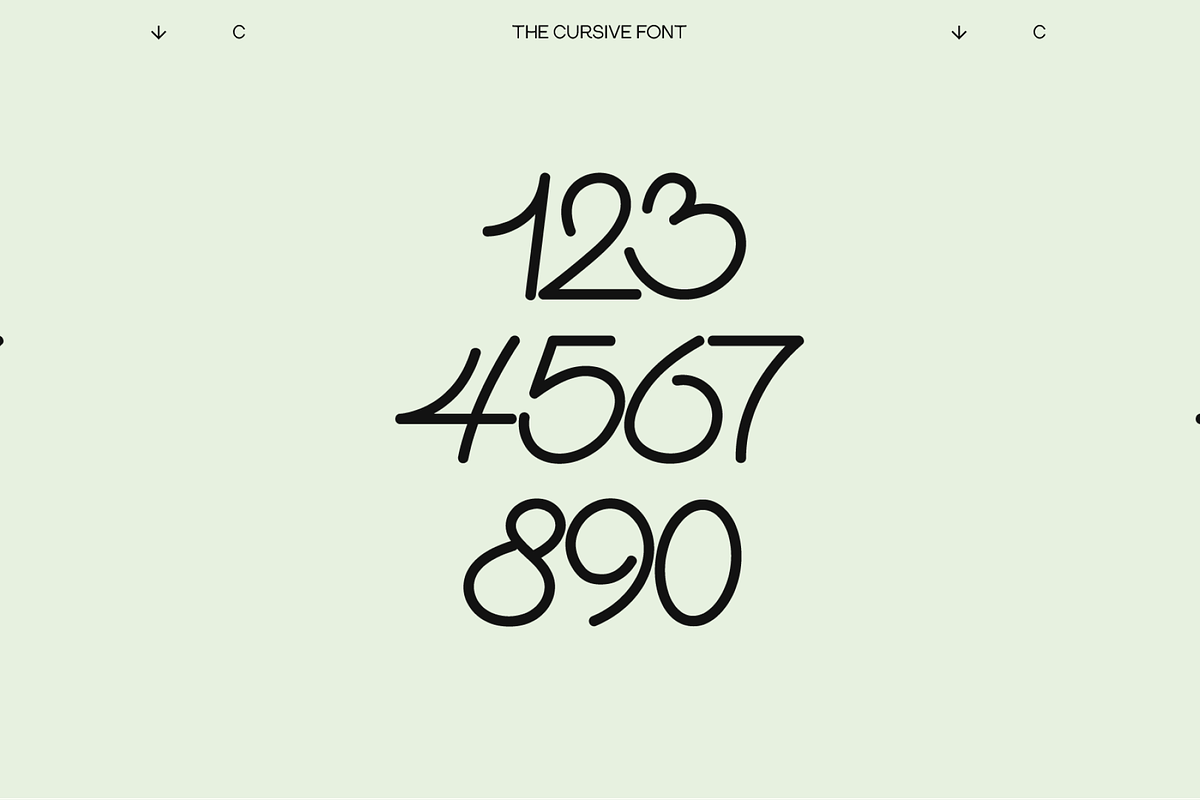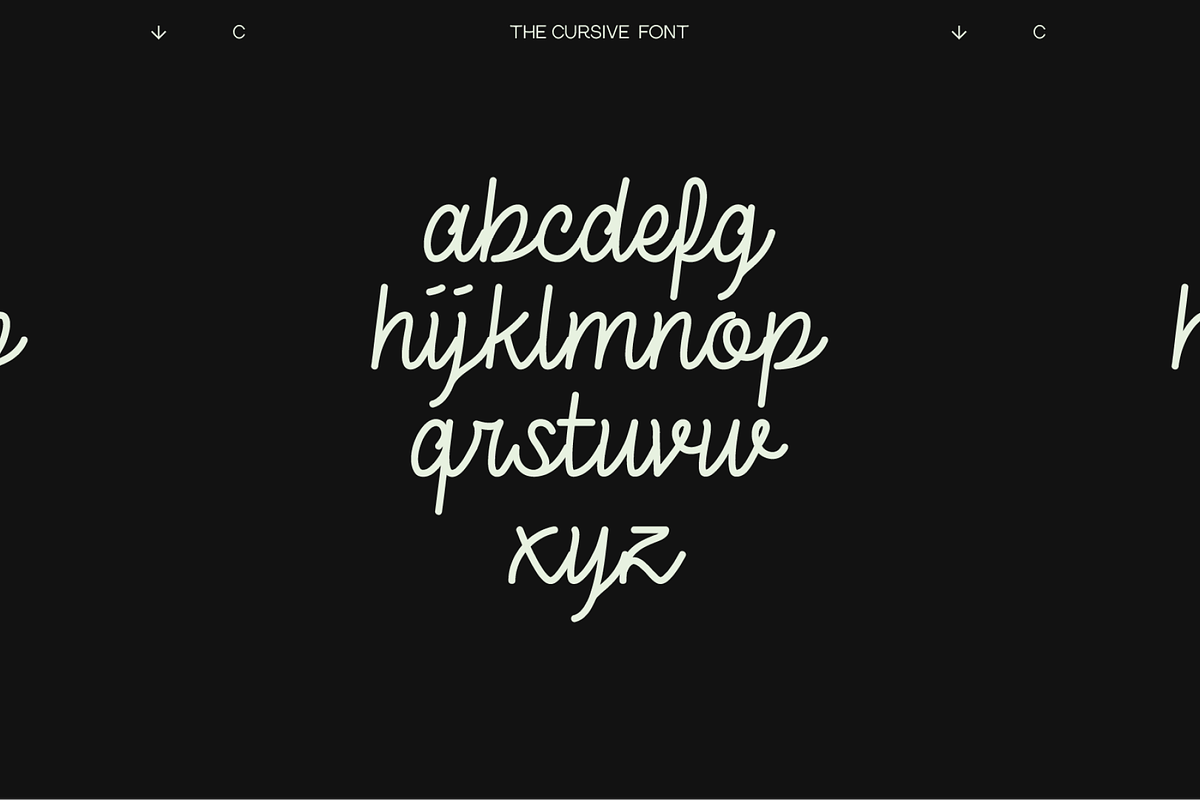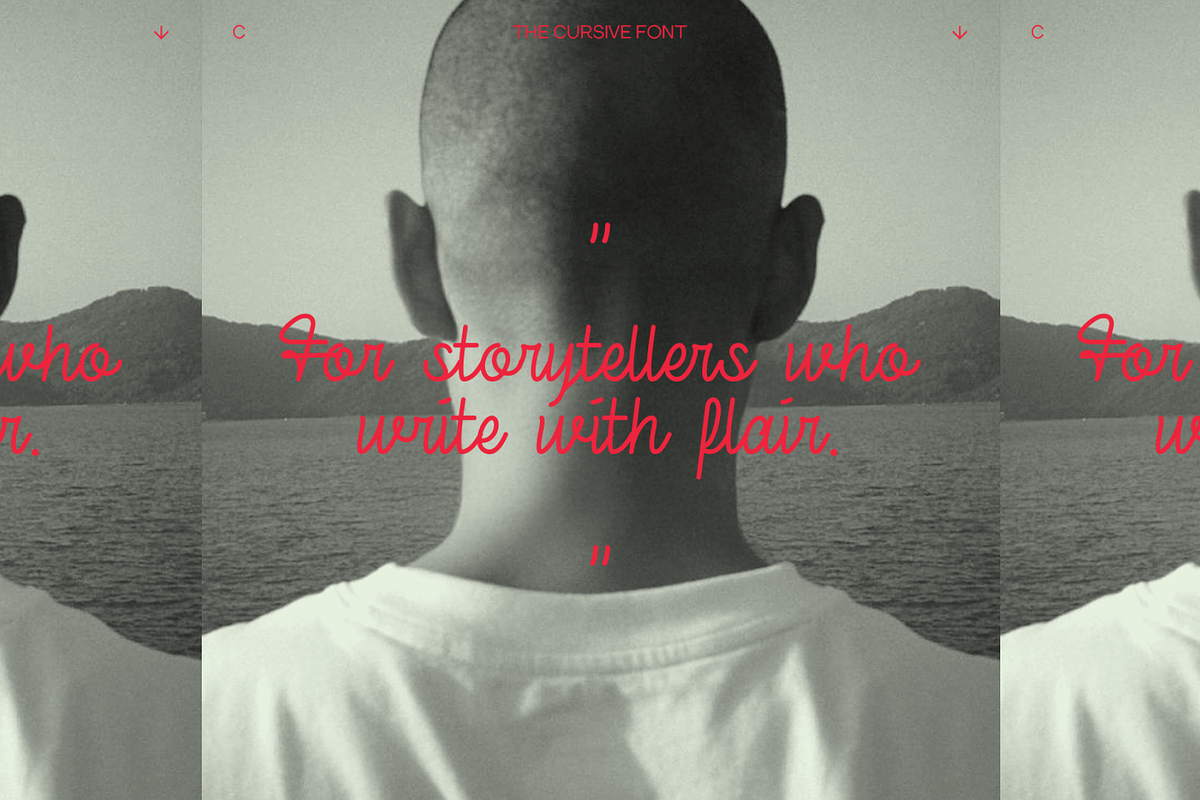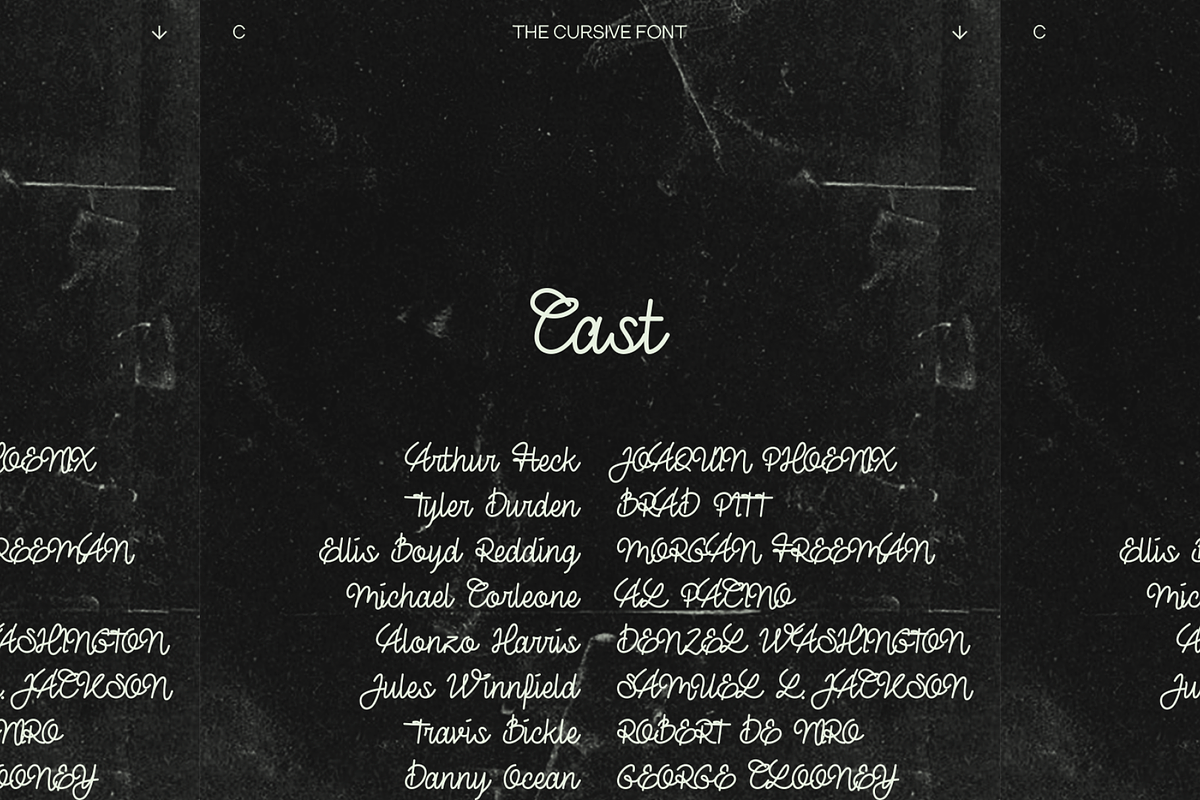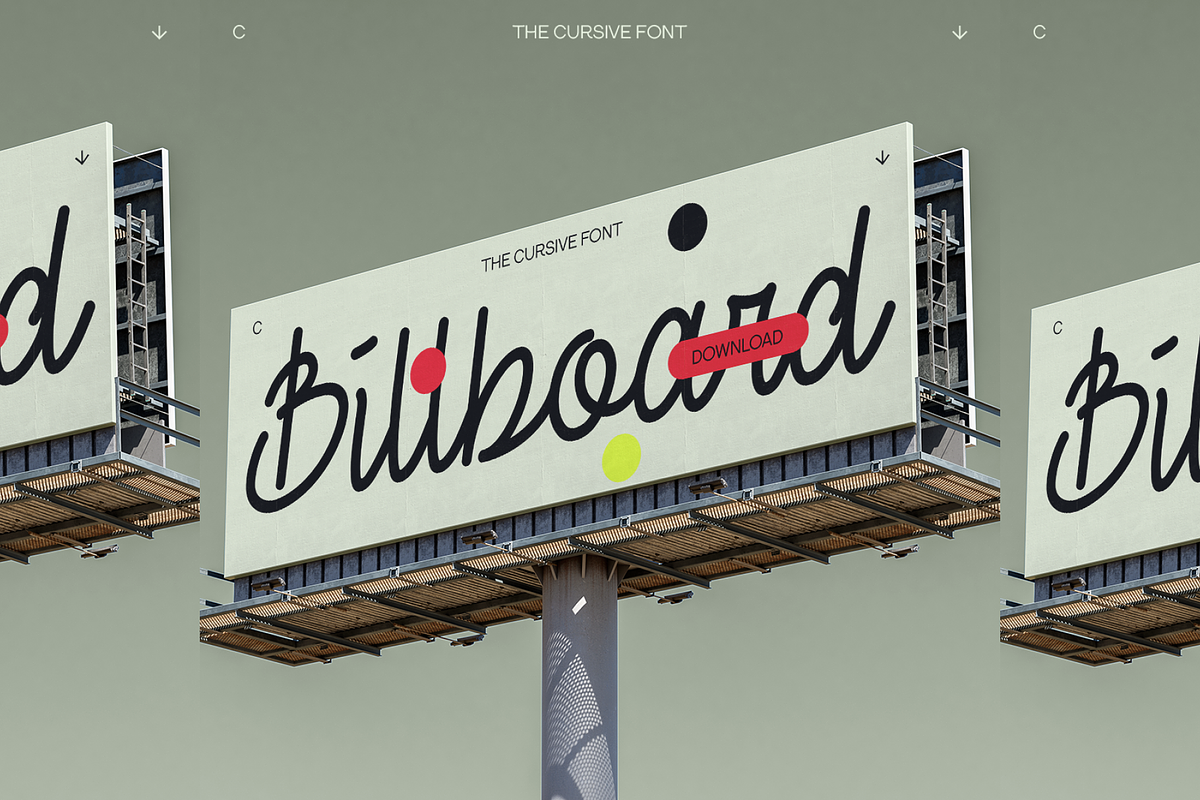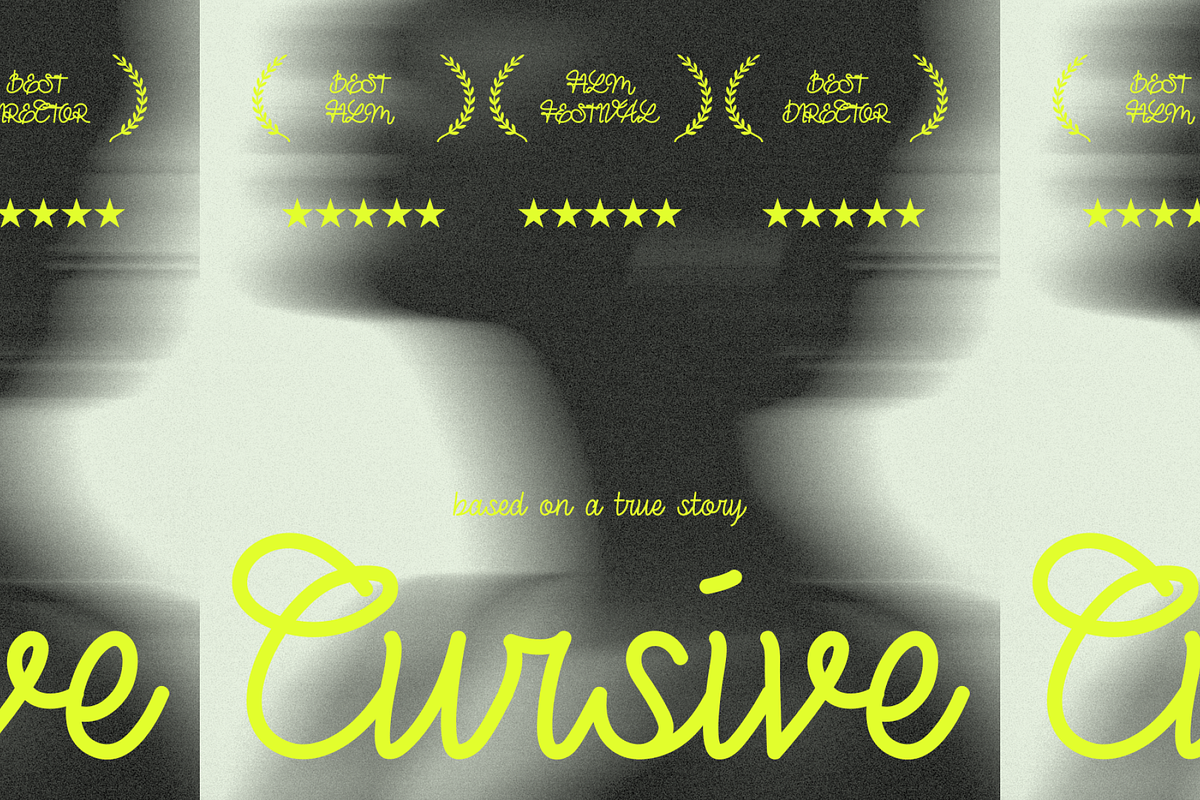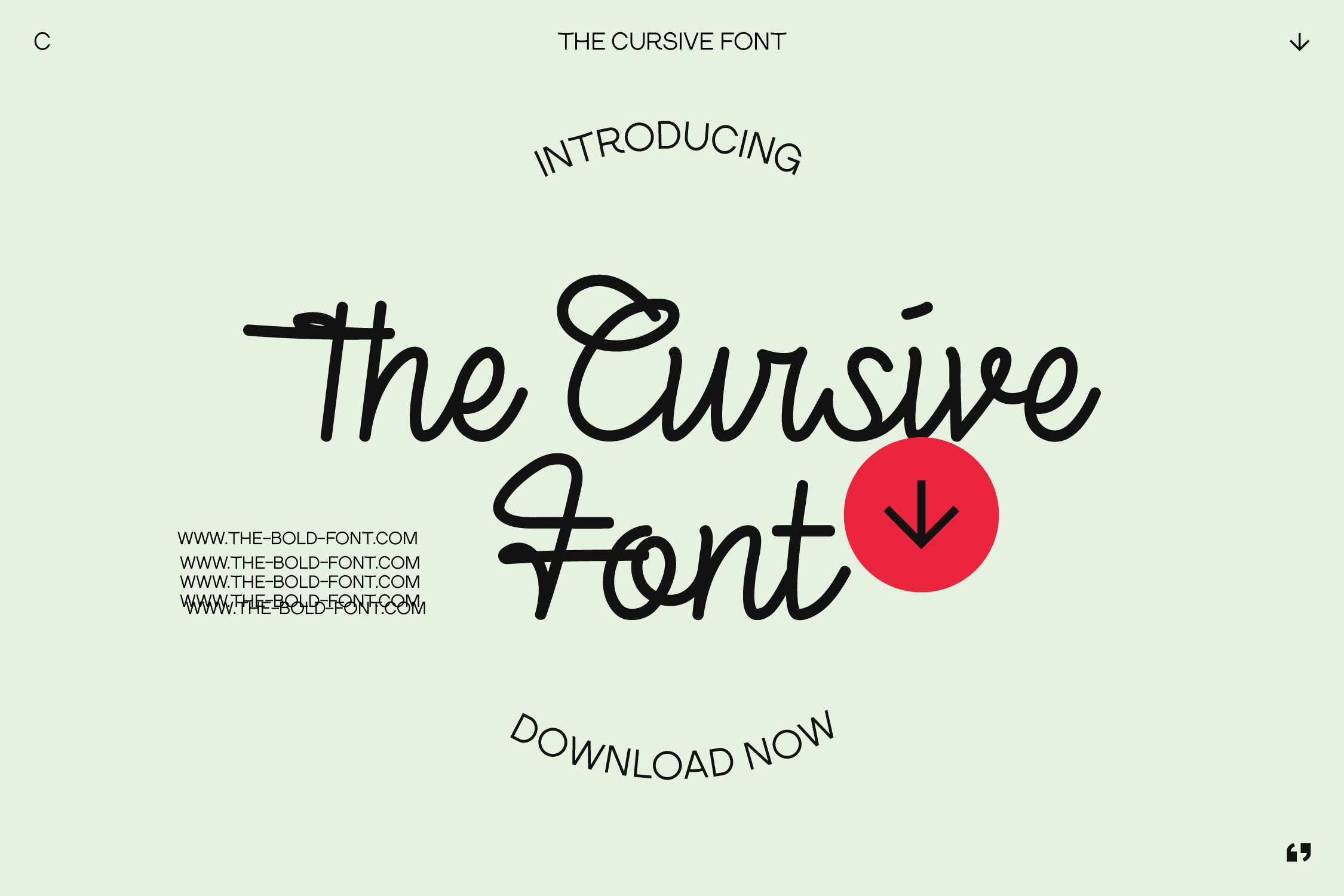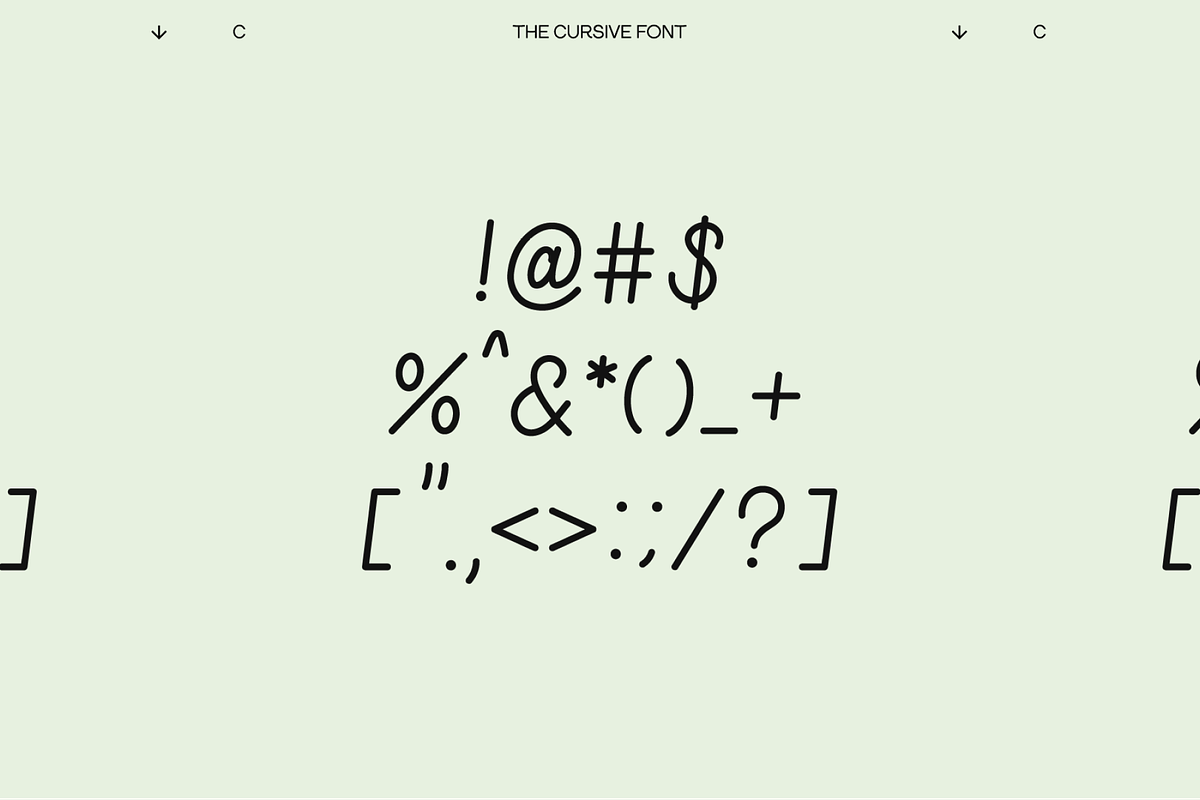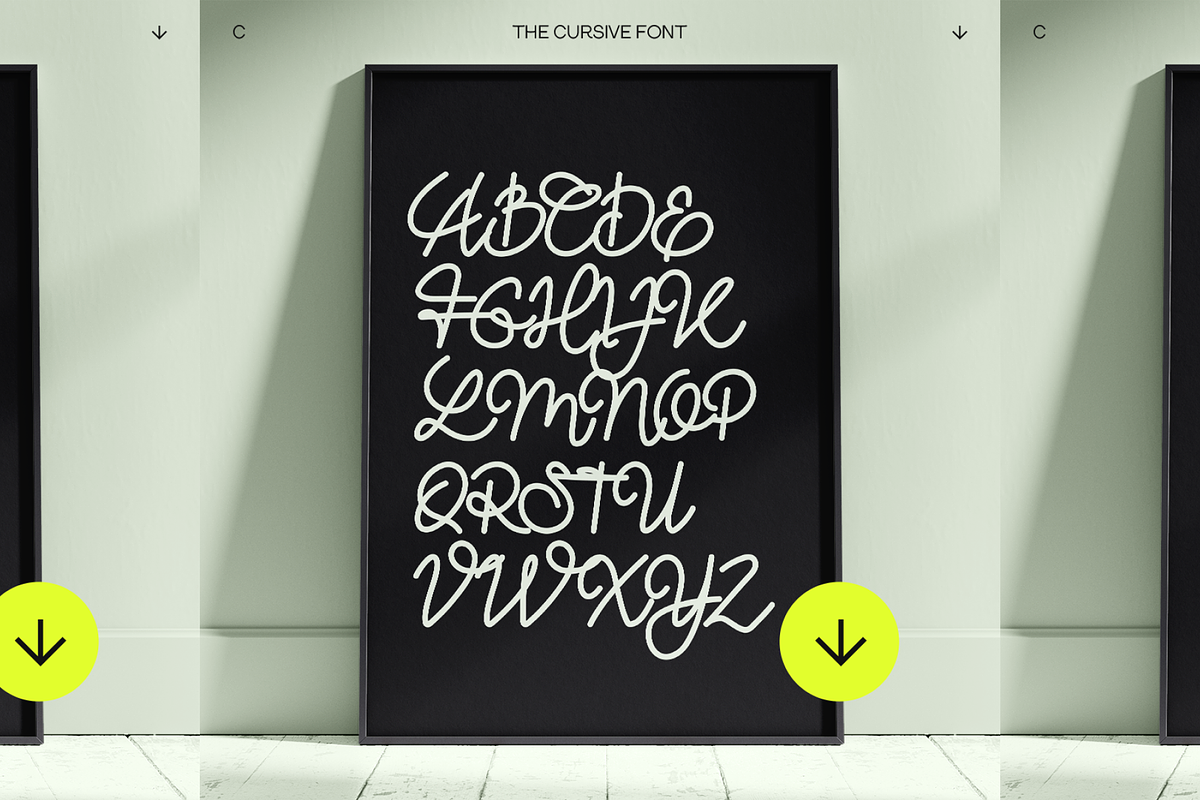
THE CURSIVE FONT
THE CURSIVE FONT is an elegant handwritten font, inspired by classic calligraphy and vintage penmanship. It captures the fluidity and sophistication of script lettering, making it perfect for romantic, artistic, and refined designs. With its graceful strokes and flowing connections, this display font brings a touch of personality and charm to any project. Whether you're crafting wedding invitations, branding, or social media graphics, THE CURSIVE FONT delivers timeless elegance with a modern twist.